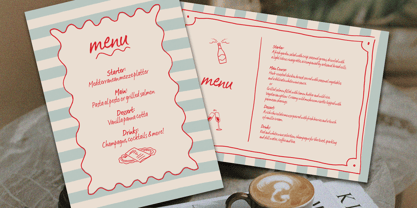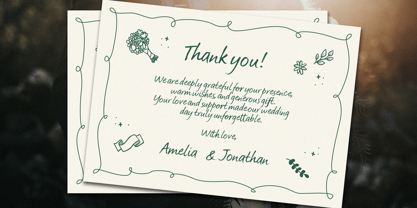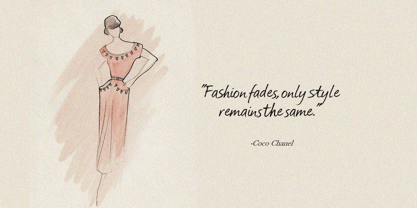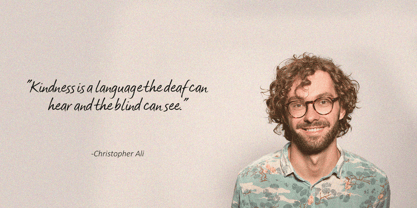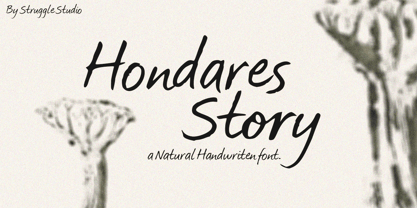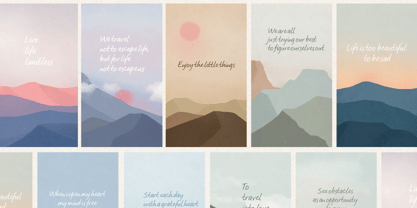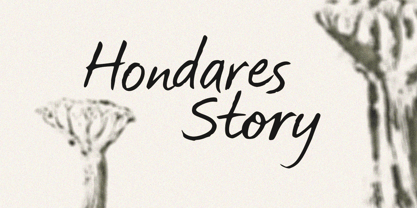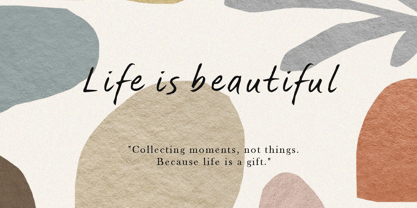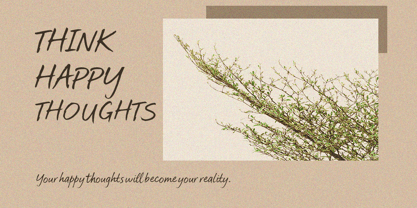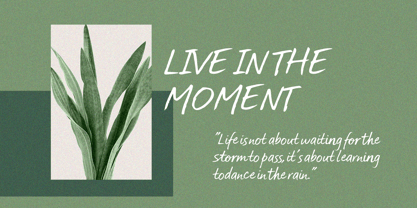
Hondares Story
by Struggle Studio
The Hondares Story Font Family was designed by Andri Kurniawan and published by Struggle Studio. Hondares Story contains 1 styles. More about this family
The Essence of "Life is Beautiful" Inspired by a spirit of curiosity and a warm smile, this collection celebrates the art of living. Life isn't about perfection; it’s a canvas where every unwritten day is a new brushstroke. By furnishing our souls with wonder and choosing kindness—the language even the deaf and blind can understand—we turn the journey into a masterpiece. Design Highlight: Hondares Story Font To capture this raw, personal creativity, we use Hondares Story by Struggle Studio. This natural handwritten font mimics real penmanship, making every quote feel like an intimate note. It is the perfect choice for: Authentic Branding: Giving a "human" touch to your identity. Soulful Content: Elevating quotes and social media with organic flow. Personal Memories: Crafting invitations that feel truly heartfelt.
Designers: Andri Kurniawan
Foundry: Struggle Studio